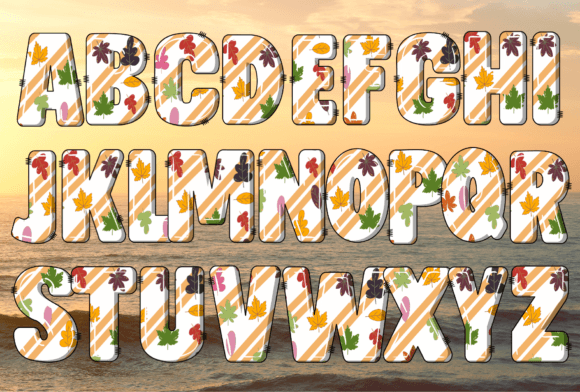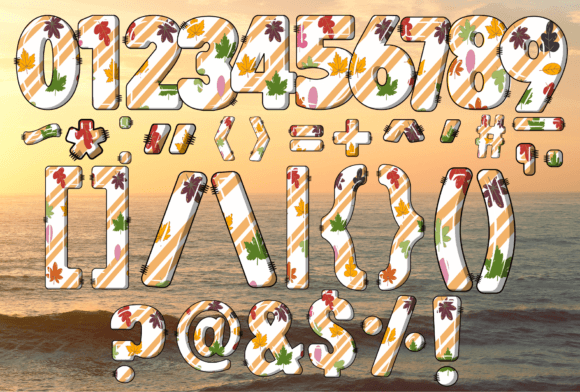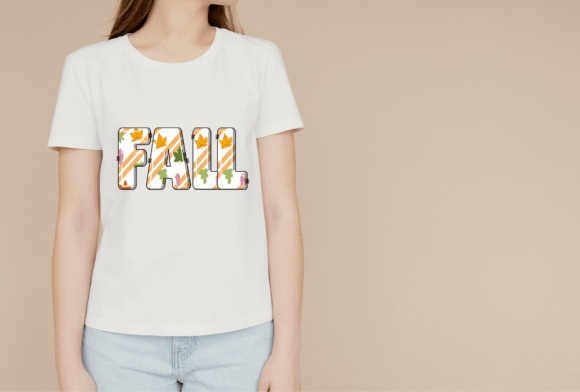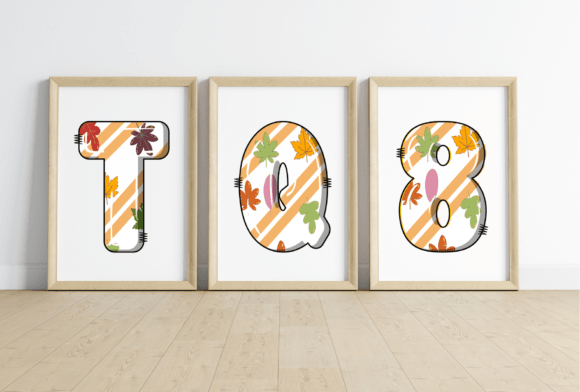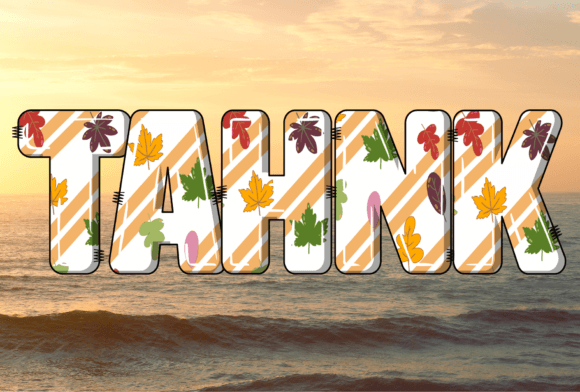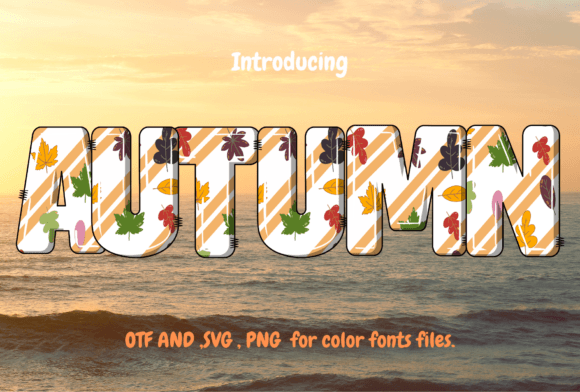
The Magic of Autumn Font: Adding a Joyful Touch to Your Designs
I’ll never forget the time I was working on a project for a client’s fall-themed party invitation. I had a clear vision of what I wanted to create, but something was missing – the perfect font. I scrolled through my font library, but nothing seemed quite right. That’s when I stumbled upon Autumn Font, and it was love at first sight! ✨
Autumn Font is a cute and quirky font that adds an incredibly joyful touch to your designs. Its unique charm makes it perfect for creative projects that need a bit of personality. In this article, I’ll share my honest review of Autumn Font, provide a practical guide on how to use it, and explore similar fonts that might tickle your fancy.
• ✨ Unique and playful design that adds a touch of whimsy to your projects
• 🎉 Perfect for fall-themed projects, but also versatile enough for other creative endeavors
A Few Quirks to Consider
While Autumn Font is an amazing addition to any design project, there are a few things to keep in mind:
• 🤔 Some characters may not work well in all contexts, so be sure to test the font thoroughly
• ⚠️ Limited availability of certain OpenType features, which might limit its use in certain projects
The Story Behind Autumn Font
Autumn Font was designed by a talented type designer who wanted to capture the essence of the fall season. Inspired by the changing leaves, cozy sweaters, and warm cups of coffee, this font is the perfect reflection of the season’s playful and nostalgic spirit.
Q: Is Autumn Font suitable for body text?
While Autumn Font is highly legible, it’s best suited for headings and titles. For body text, consider using a clearer, more traditional font.